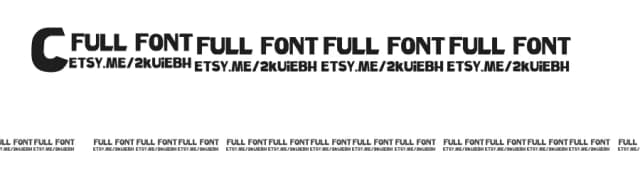
About Machala Sans Font
Machala Sans.
By Dean Machala
Machala Sans Font is a versatile sans-serif font that works for both headings and body text. Pair it with a contrasting serif or slab serif font to add visual interest and a clear distinction between titles and body copy.
Machala Sans Font
by MeetDean